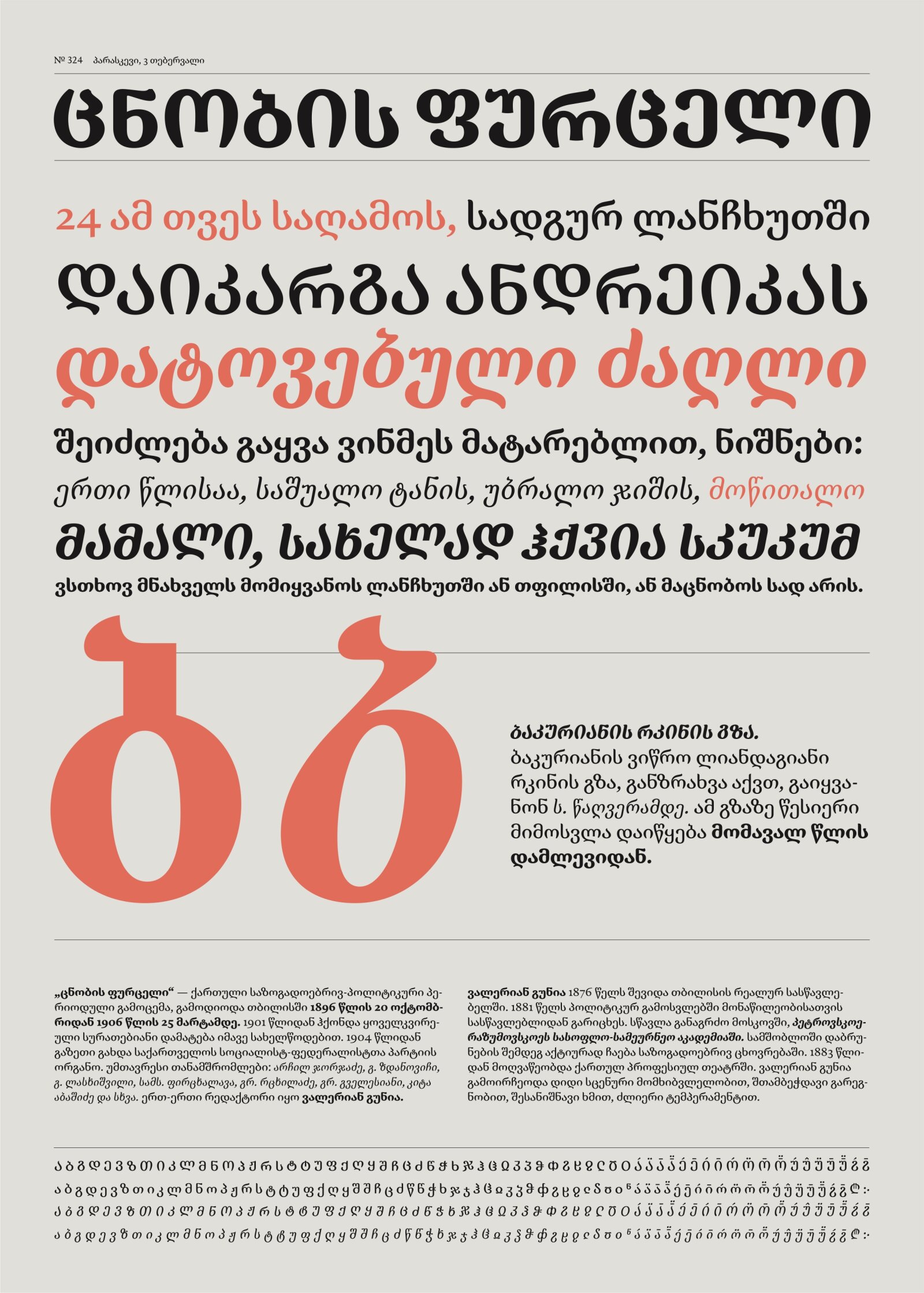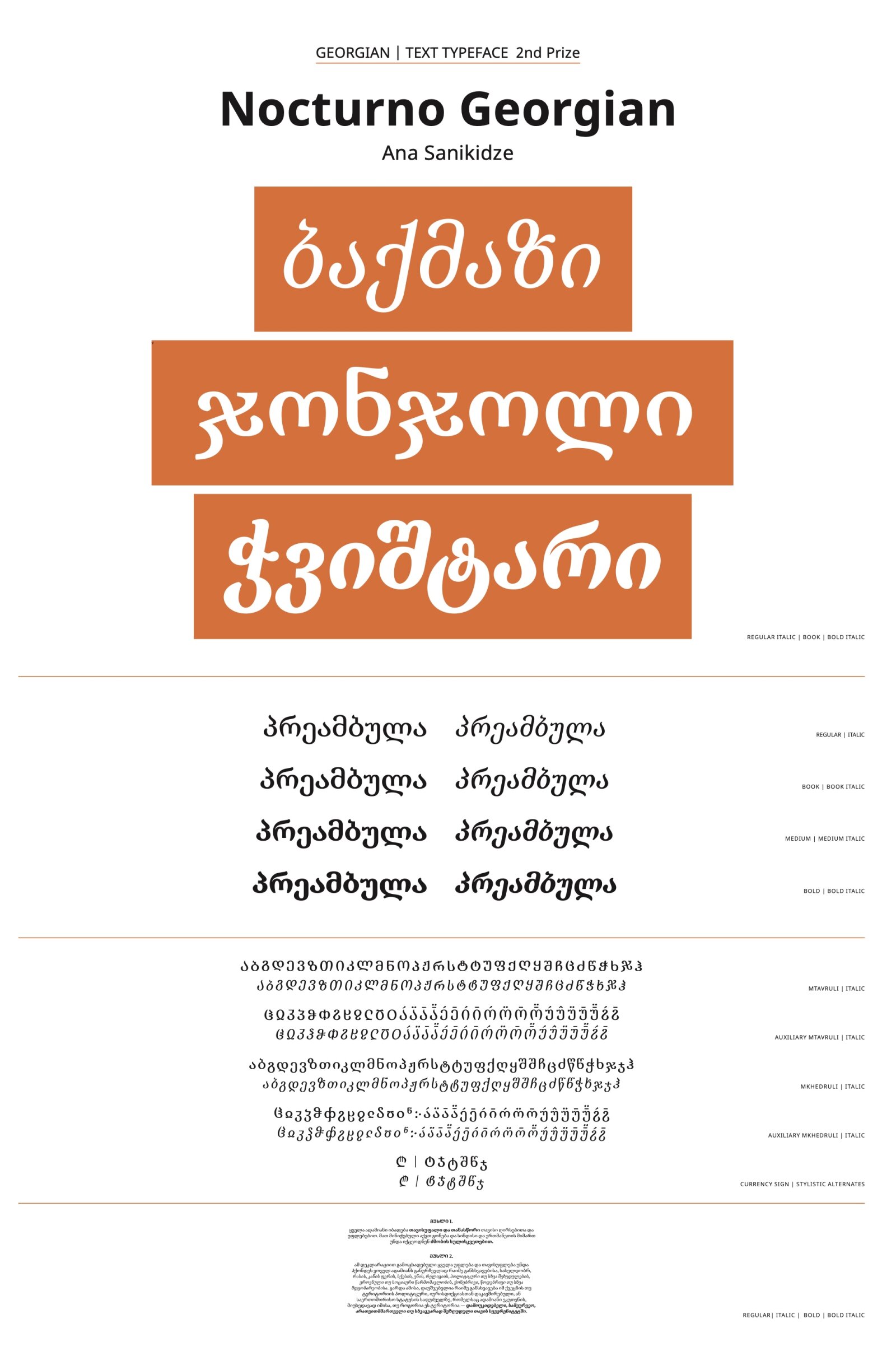
Nocturno Georgian
by Ana Sanikidze
Georgian
Nocturno Georgian is an extension of Typotheque’s existing multiscript text typeface. Currently, the type family encompasses Latin, Georgian, and Cyrillic scripts. Nocturno Georgian is an unapologetically calligraphic typeface, drawing strong inspiration from the Georgian calligraphic tradition. This influence is particularly evident in the Italic style, where alternate shapes for specific letters mirror the fluid strokes found in fast-paced writing. Nocturno Georgian harmonizes seamlessly in a multiscript setting, maintaining the same optical size and texture as other scripts while respecting the proportions inherent to the Georgian script. To accommodate the small counters, both ascenders and descenders are slightly longer, resulting in a typeface that is ideal for extended reading. This design ensures superb legibility, and with four finely tuned weights, it allows for the creation of clear text hierarchies.